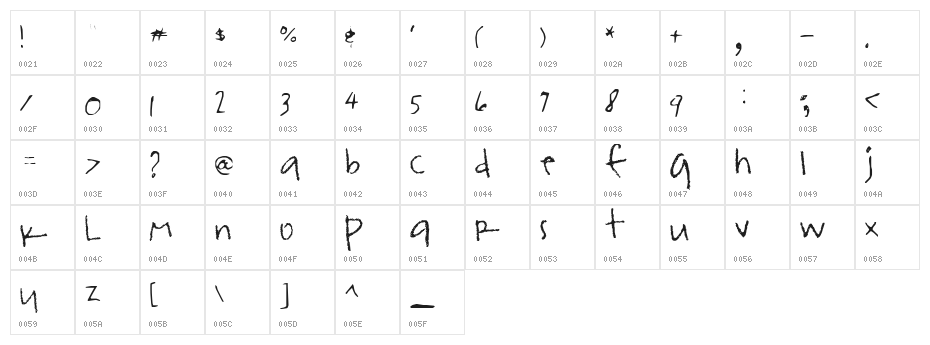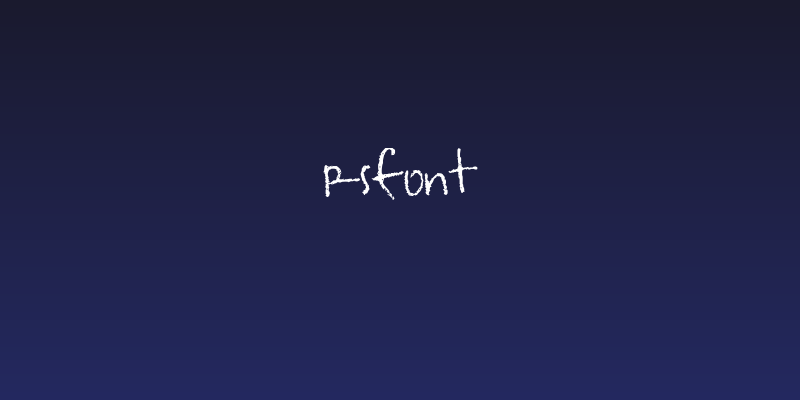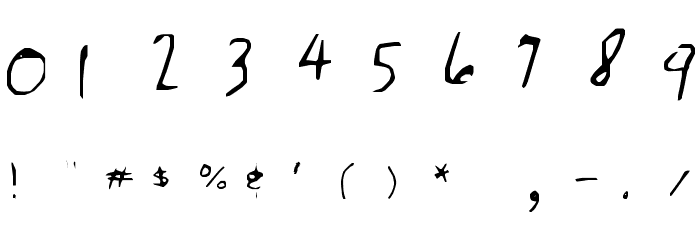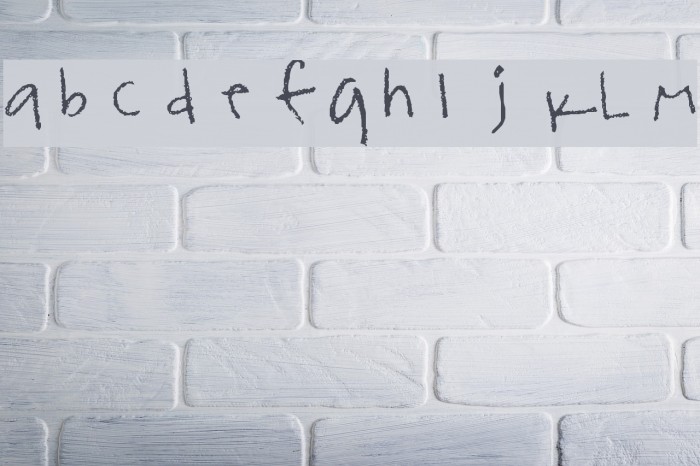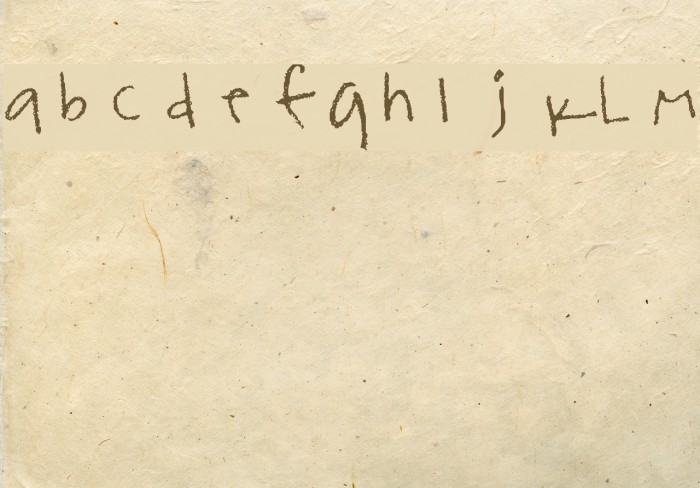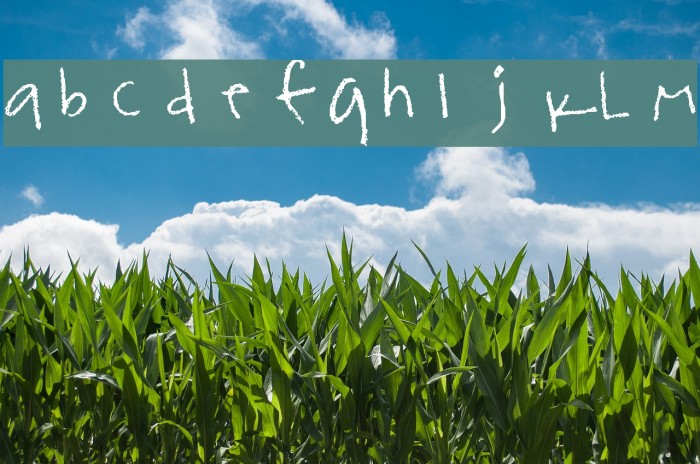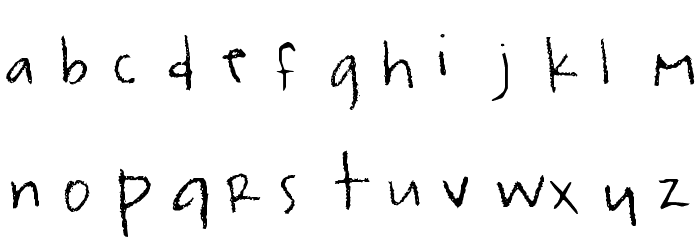
rsfont Font
rsfont Description
This font exhibits a handwritten style with a rough, textured appearance, reminiscent of ink on paper. The characters are irregular and slightly tilted, giving a casual and organic feel. The strokes vary in thickness, adding to the hand-drawn aesthetic. The uppercase and lowercase letters maintain a consistent style, with some letters featuring unique quirks, such as the distinctive loop in the lowercase 'g' and the angular form of the uppercase 'M'. The numbers and special characters follow the same informal style, making this font suitable for projects that require a personal touch.
| Overall Style | Casual, Organic |
| Proposed Projects | Ideal for personal notes, invitations, greeting cards, or any project that benefits from a handwritten, informal look. |